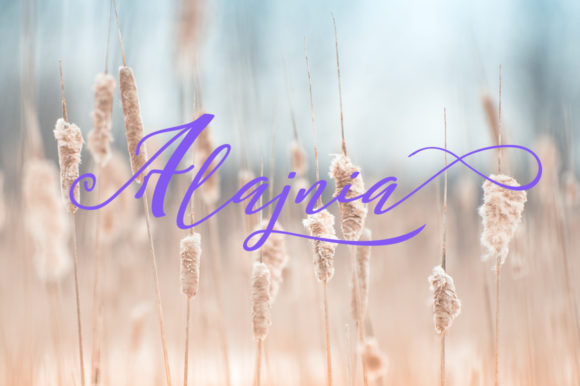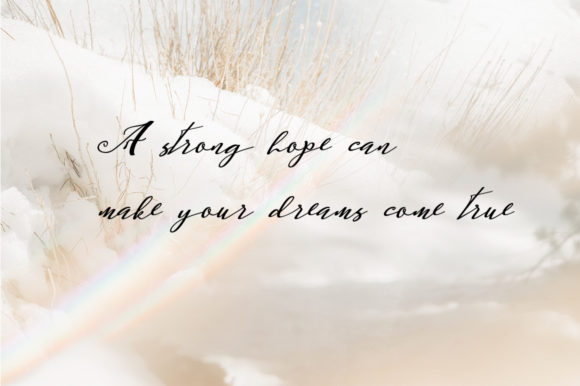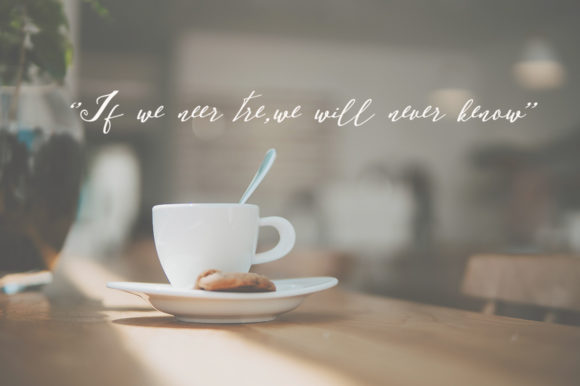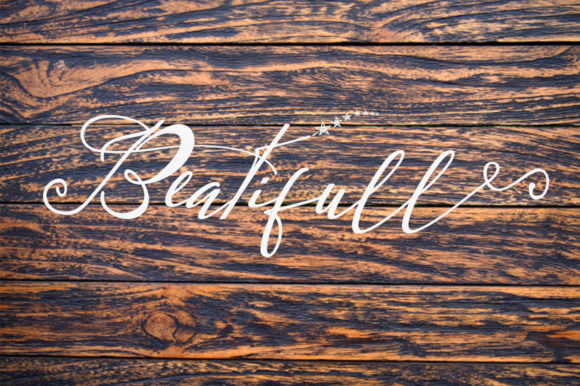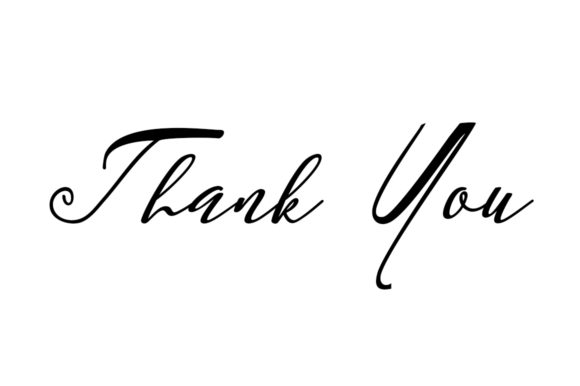
Discover the Timeless Charm of Modern Calligraphy
Have you ever found yourself captivated by the intricate dance of a pen on paper, the way the strokes flow effortlessly, and the characters come alive? That’s the magic of calligraphy – a world where art meets typography. As a designer, you’re no stranger to the endless possibilities of fonts and lettering. But, sometimes, it’s the unique and bold ones that truly set our work apart.
Enter Amayda Font – a stunning brush script that’s as beautiful as it is unique. Designed to evoke the spirit of modern calligraphy, Amayda Font is perfect for those looking to add a touch of elegance and sophistication to their designs. Whether you’re a seasoned pro or just starting out, Amayda Font is a valuable addition to your design arsenal, offering endless possibilities for creative expression.
Amayda Font Key Features
- Font Family: Amayda, Amayda Bold, Amayda Italic, Amayda Bold Italic
- Font Size: 14,400 glyphs (including characters, ligatures, and swashes)
- Unique Characteristics: Elegant, cursive script with subtle flair and connection between letters, making it suitable for invitation, greeting card, and wedding designs
Amayda Font Review
First off, I want to say that I was excited to dive into the Amayda Font. It’s got a unique, modern look that’s perfect for digital designs. ✨ I love how it comes with a range of weights and styles, making it super versatile. ✨ The font is also incredibly legible, even at smaller sizes. ✨
However, there are a few limitations that held me back from giving it a full 5 stars. ⚠️ For one, the font feels a bit too sterile, lacking a bit of personality. ⚠️ I also found the bold weights to be a bit too heavy, which can make text feel overwhelming. ⚠️ Additionally, I wish the font included more language support, as it’s currently limited to a few languages.
Overall, I’d say the Amayda Font is a solid choice for digital designs, but it’s not without its flaws. If you’re looking for a modern, legible font with a range of weights, this might be the one for you. Just be aware of its limitations, and don’t be afraid to experiment with different weights and styles to get the look you want.
- Unique, modern look
- Range of weights and styles
- Incredibly legible, even at smaller sizes
- Limited language support
- Bold weights can feel too heavy
Tip: Use the Amayda Font to add a touch of elegance to your designs, especially for wedding invitations, business cards, or branding materials.
Tip: Use the Amayda Font to create custom typography for your designs, especially for logos, headings, or body text.
Tip: Use the Amayda Font to add a touch of sophistication to your presentations, reports, or documents.
The Amayda Font is ideal for:
- Business cards and branding materials
- Logos and custom typography
- Presentations, reports, and documents
Alternatives to Amayda Font
Montserrat is a modern sans-serif font designed for digital use. It is highly legible and versatile, making it suitable for a wide range of applications, from body text to headlines. Montserrat is similar to Amayda Font in its clean and minimalist aesthetic, but it has a more geometric feel.
Lato is a sans-serif font that is highly customizable and suitable for both digital and print use. It has a friendly and approachable feel, making it ideal for body text and corporate branding. Lato is similar to Amayda Font in its modern and elegant feel, but it has a more rounded and humanist design.
Open Sans is a popular sans-serif font that is highly legible and suitable for digital use. It is designed for body text and has a clean, minimalist aesthetic. Open Sans is similar to Amayda Font in its simplicity and readability, but it has a more neutral and corporate feel.
Inter is a modern sans-serif font designed for digital use. It has a clean and minimalist aesthetic, with a focus on readability and legibility. Inter is similar to Amayda Font in its modern and elegant feel, but it has a more geometric and technical design.
Amayda Font Project Ideas
Project 1: Amayda Wedding Invitations
Create beautiful and elegant wedding invitations using the Amayda Font. This elegant script font is perfect for wedding stationery.